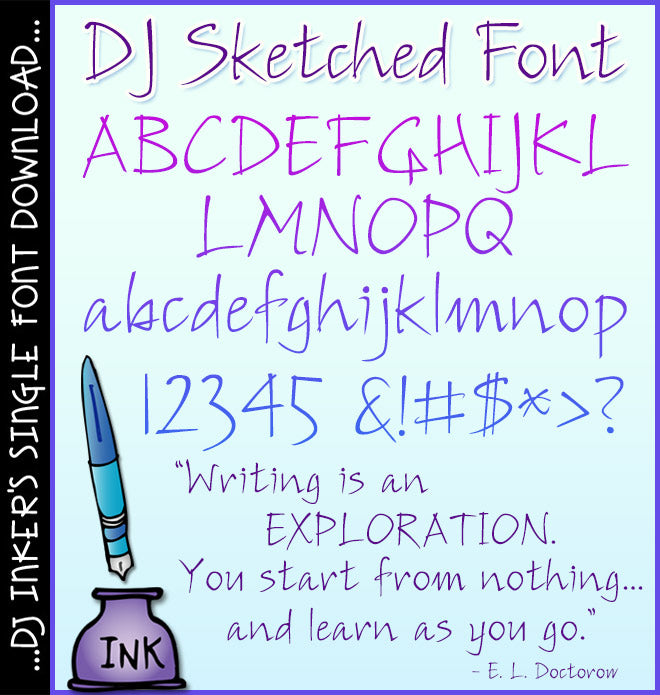
DJ Sketched Font Download
Give your projects a light, dynamic flair with our 'DJ Sketched' font.
Just right for typing up a cheerful note, journaling, school projects and
more! This font will do wonderfully in just about any size and color you
like. (djdf21)